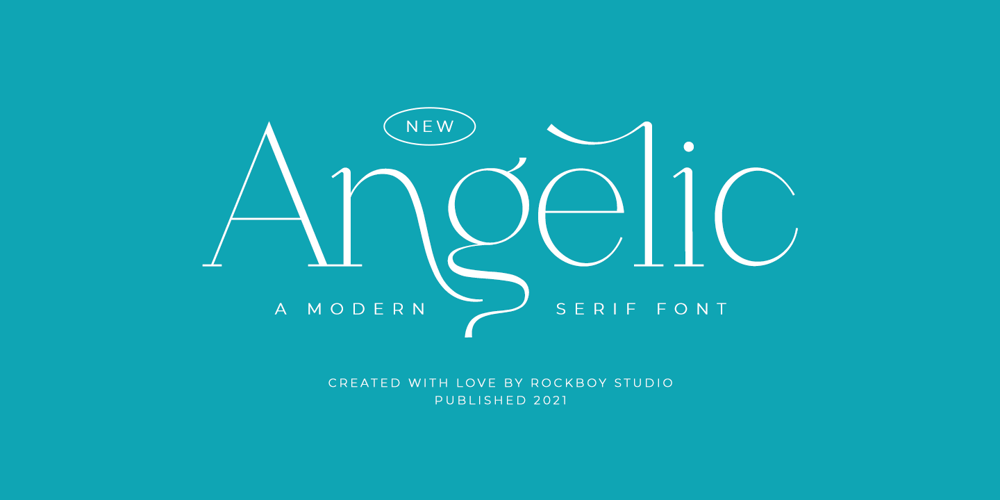
Angelic Font Family was designed by Hayinah and published by Rockboys Studio. Angelic contains 1 styles and family package options. Angelic is an elegant and authentic serif font. No matter the topic, this thin font will be an incredible asset to your library, as it has the potential to elevate any creation.